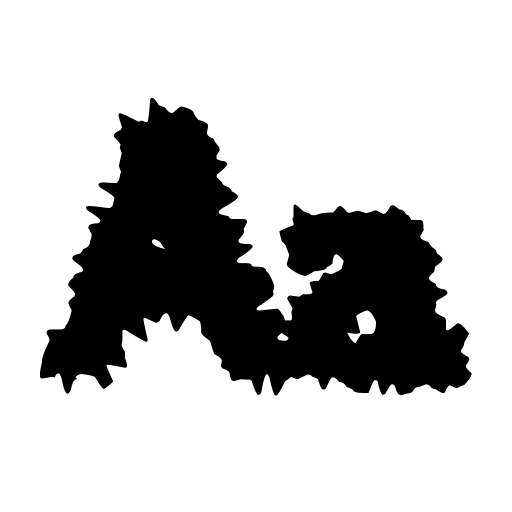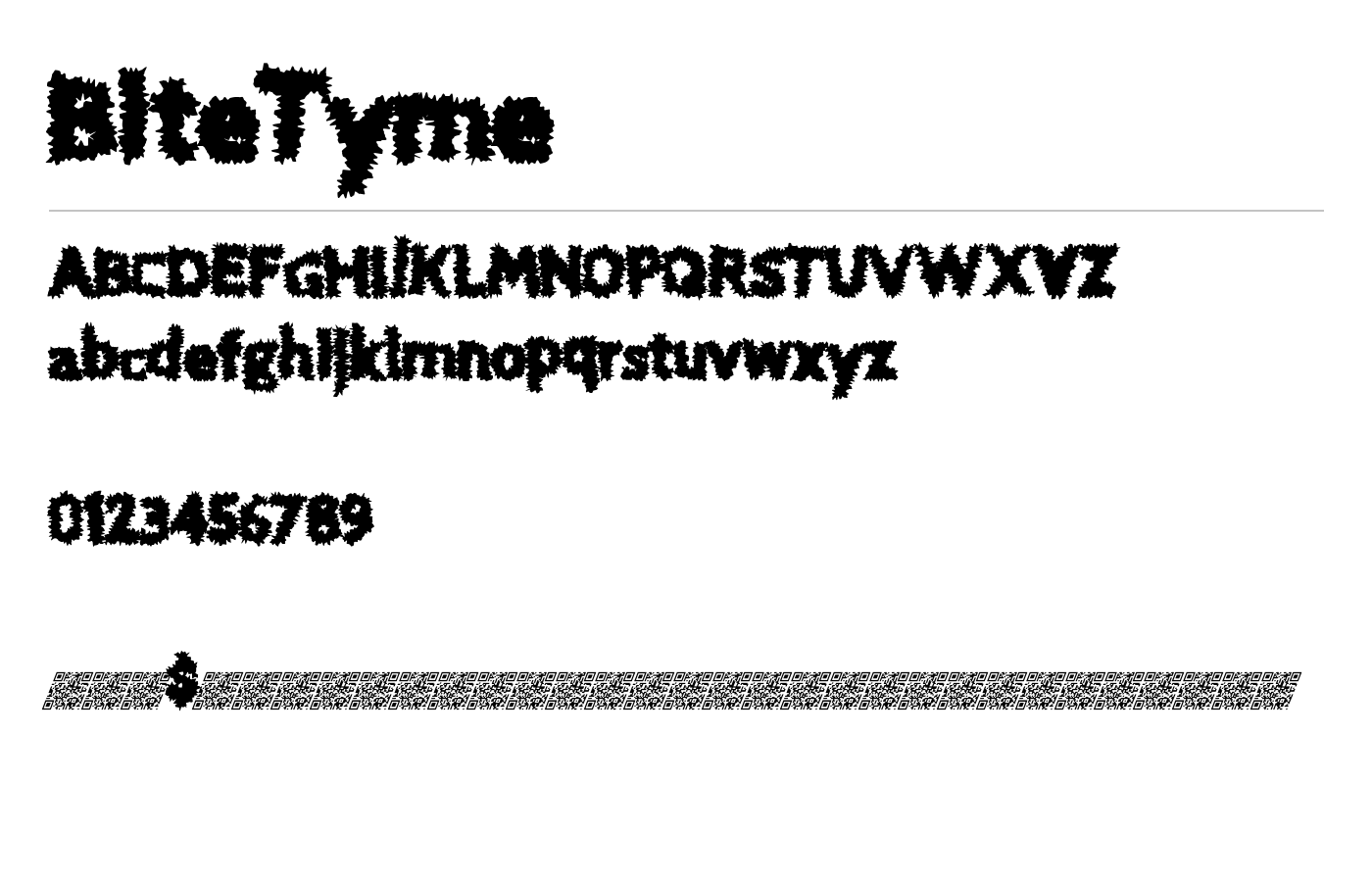
BiteTyme is a bold, condensed sans serif font with a jagged, textured edge that gives it a raw, energetic feel. Its playful and eye-catching style makes it perfect for creative projects, posters, and branding that want to stand out with a rebellious or edgy personality. This font works best in display settings where its unique, rough texture can capture attention and add character.
BiteTyme Font